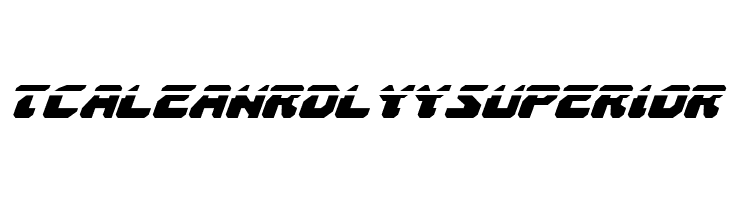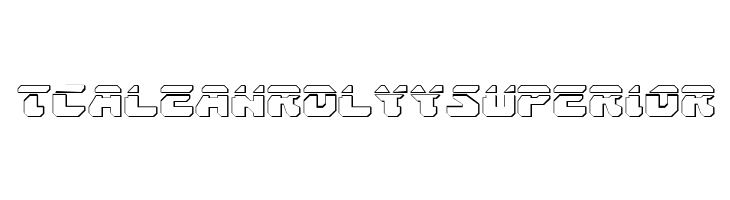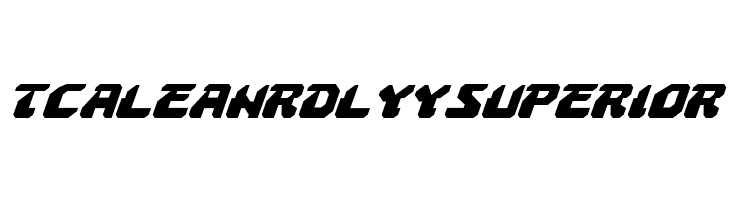
Landi_Echo Font
A bold, futuristic italic font with angular, geometric letterforms.
A futuristic, geometric font with a 3D effect and sharp angles.
A bold, geometric, and futuristic font with a condensed style.
A bold, italicized font with a futuristic and dynamic design.
A bold, futuristic font with geometric angles and a sci-fi aesthetic.
A futuristic, bold font with geometric, blocky characters and a strong, digital aesthetic.
A bold, geometric font with a rough, textured finish and sharp, angular characters.
A bold, futuristic font with angular, geometric shapes.